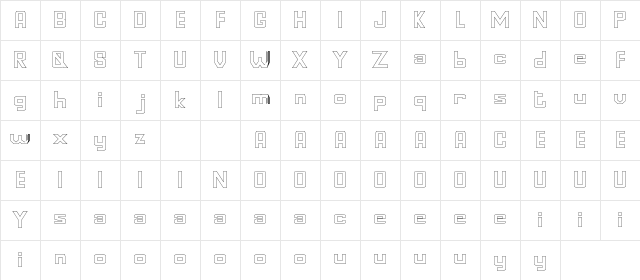
Goldin Finance DEMO Storoke Regular
Foundry: Edric Sudio
Designer: M Nouval
Design Context for Goldin Finance DEMO Storoke
Goldin Finance DEMO Storoke is a composed and adaptable typeface that performs quietly and consistently across a wide range of design contexts.